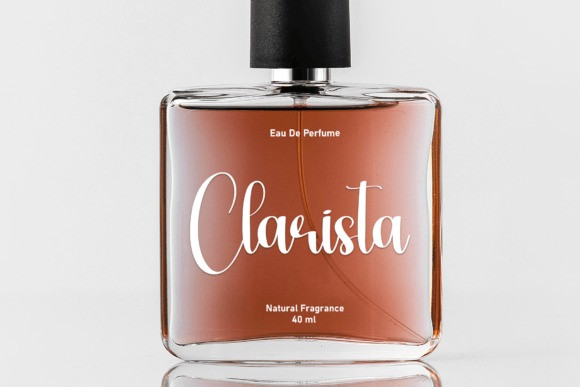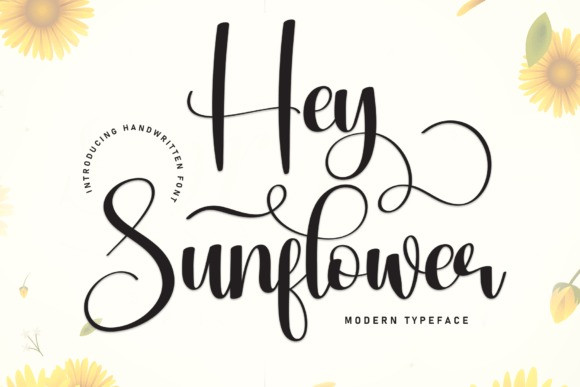
Hey Sunflower Font
Hey Sunflower Font is a sweet and friendly handwritten font. Its natural and unique style makes it incredibly fitting to a large pool of designs. The only limit is your imagination!